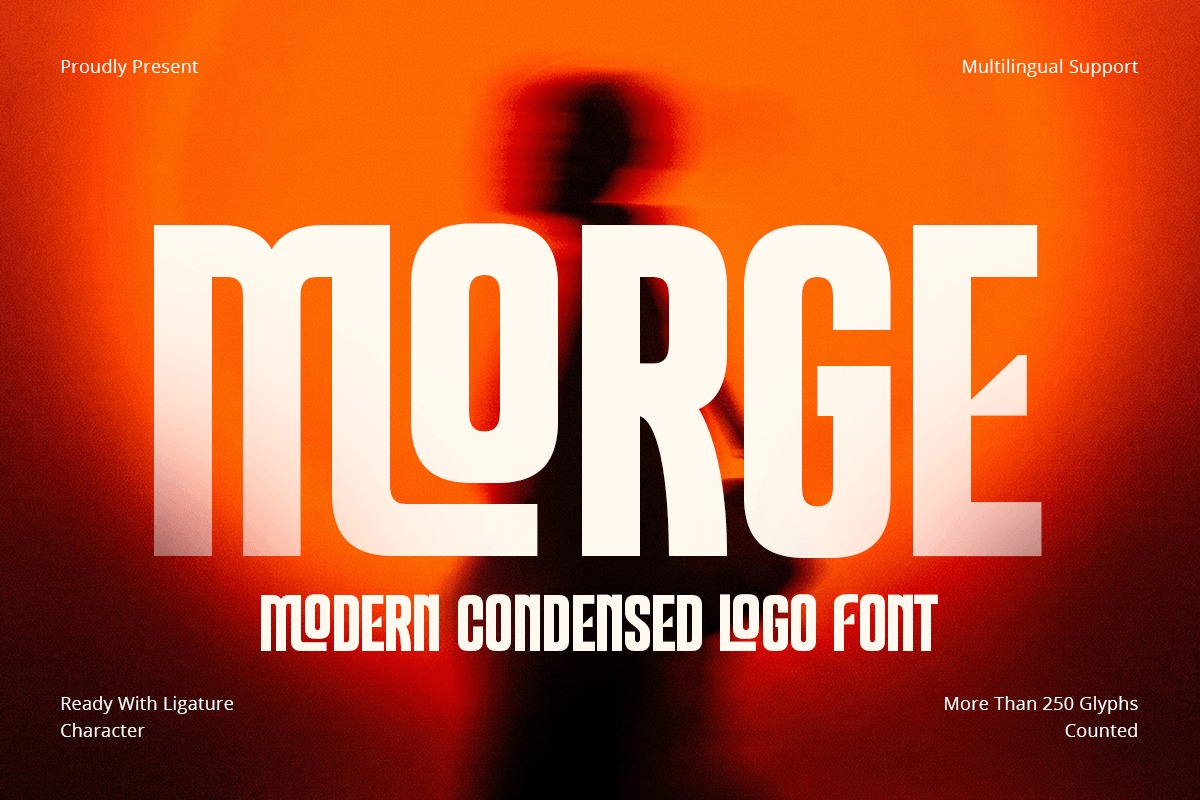
Morge – Modern Condensed Font
Morge – Modern Condensed Font is a premium-quality font developed to enhance your work with a polished, modern, and visually elevated look. Morge – Modern Condensed Logo Font is a sleek display typeface crafted to bring clarity, efficiency, and modern sophistication to branding projects. Inspired by contemporary logo design and minimalist typography, Morge is designed for businesses and creatives seeking a strong visual identity with a refined condensed aesthetic.
With its streamlined proportions, clean letterforms, and balanced structure, Morge delivers a confident and professional appearance that performs exceptionally well in logos, headlines, and brand communications. Its condensed style maximizes visual impact while maintaining excellent readability.